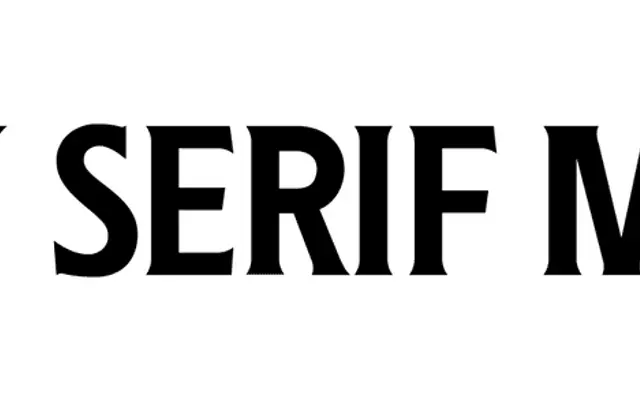
Trusty Serif Medium
A bracketed serif cut from a three-font workhorse family, sized and proportioned for legibility across curved paths and cramped settings.
The middle weight of the Trusty Serif trio, designed to sit between extremes of weight while maintaining clear, confident letterforms. Subtle bracketed serifs aid scanning, and the character proportions are built to hold up when set along curved paths or compressed into tight spaces. Positioned as a dependable utilitarian face for practical typographic tasks.
Described as having subtle bracketed serifs with utilitarian proportions optimised for legibility in tight or curved settings, placing it in a practical bracketed serif category.